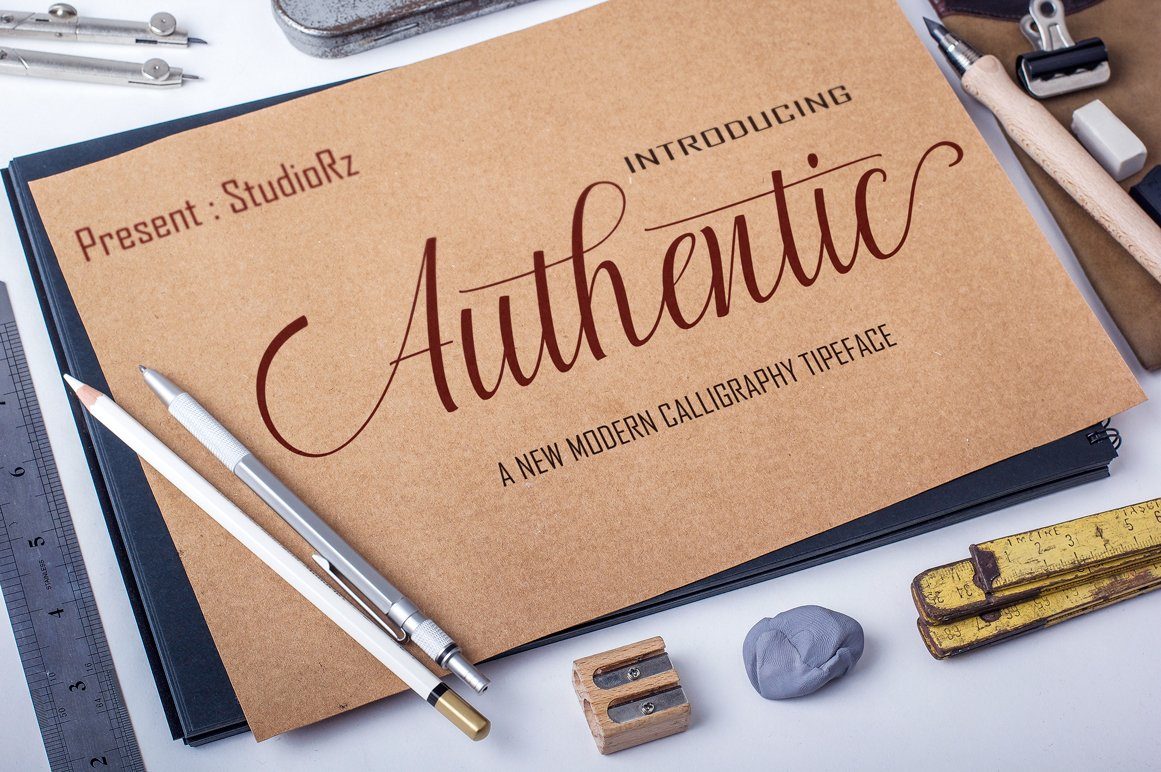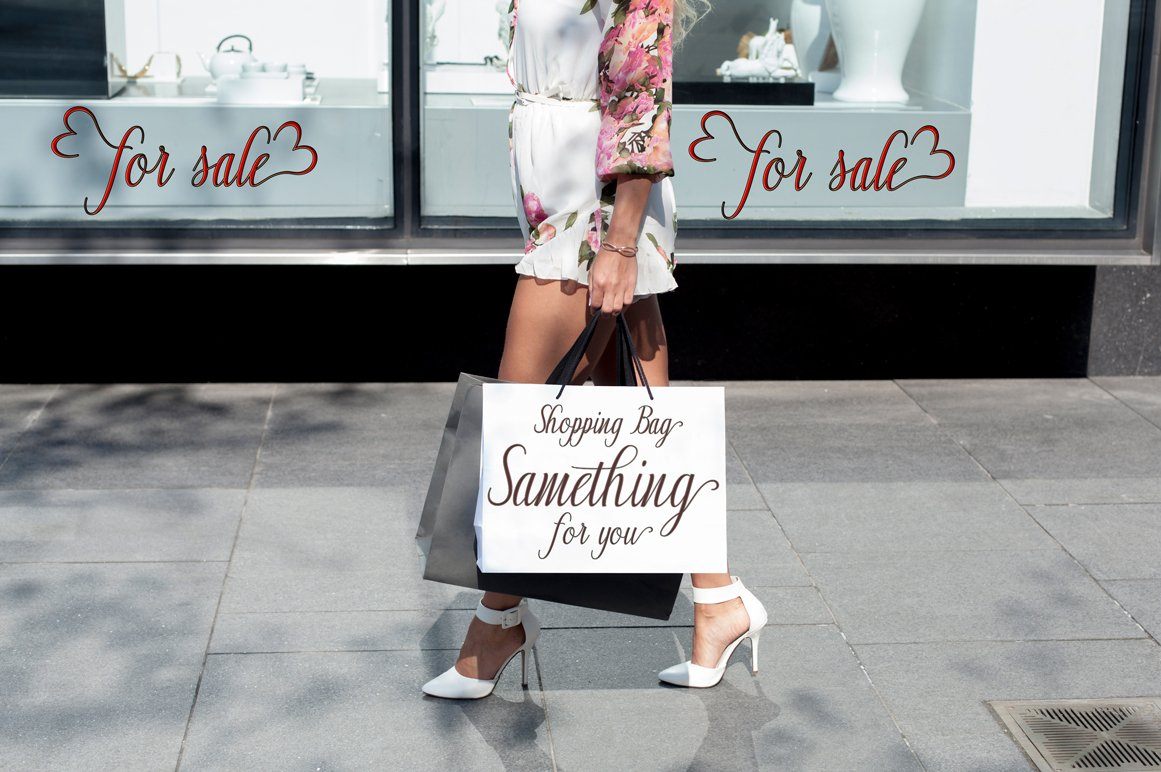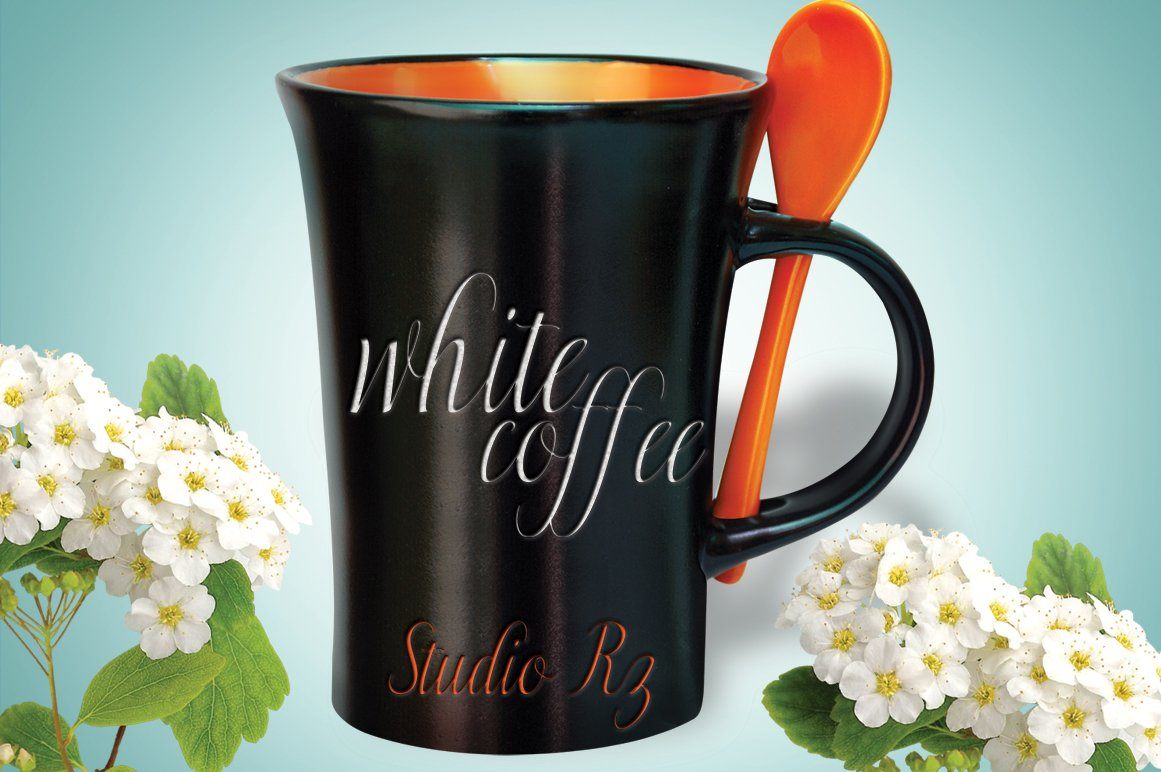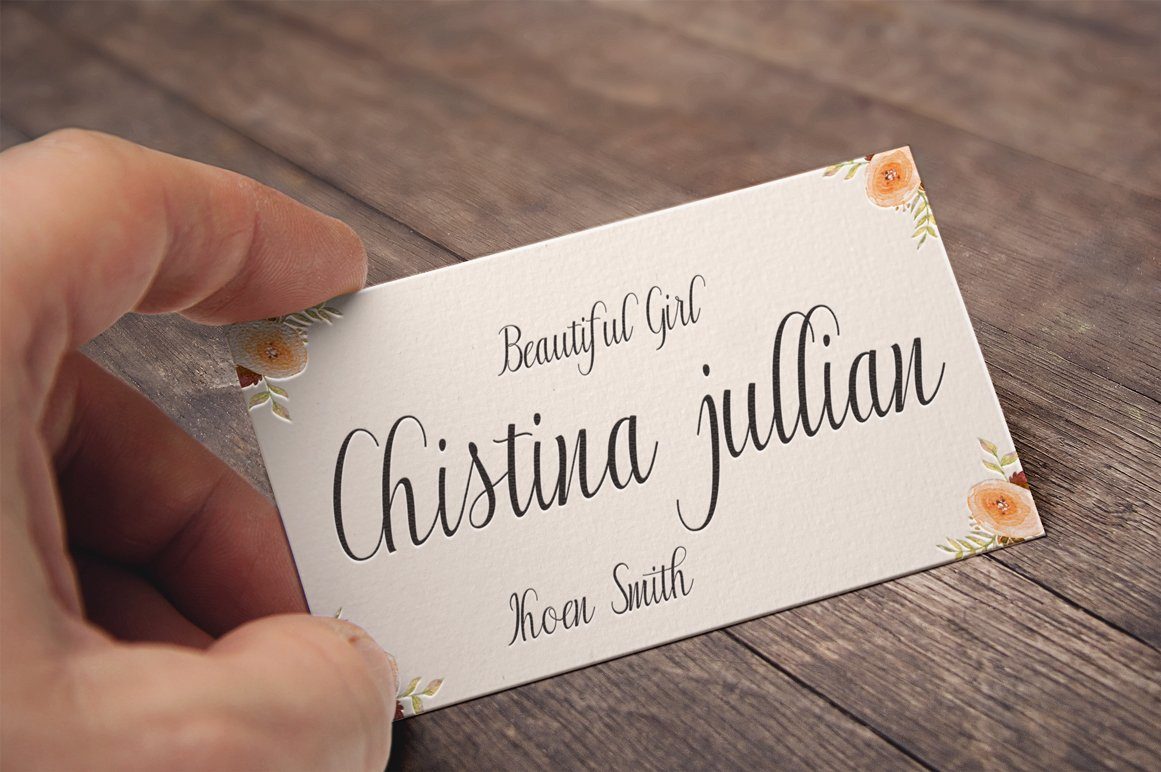
About Authantic
INTRODUCING Authentic Modern Calligraphy. This font was designed by handwriting, and it has a modern and unique forms of calligraphy, the writing style is very natural. Authentic has a very unique style of calligraphy, it is very suitable for use in the work of modern design. The Features of this fonts is: * Standart ligatures * Stylistic Alternates * PUA Unicode (Private Use Areas) * Swash File font Include: * Authentic OTF * Authentic TTF Can be used for various purposes.such as headings, logos, wedding invitation, t-shirt, letterhead, lable, news, posters, badges etc. To enable the OpenType Stylistic alternates, you need a program that supports OpenType features such as Adobe Illustrator CS, Adobe Indesign & CorelDraw X6-X7.a font that made the hand by having the character up and down like a dancer. has a very unique style of calligraphy, it is very suitable for use in the work of modern design. INTRODUCING Authentic Modern Calligraphy. This font was designed by handwriting, and it has a modern and unique forms of calligraphy, the writing style is very natural. has a very unique style of calligraphy, it is very suitable for use in the work of modern design. The Features of this fonts is: * Standart ligatures * Stylistic Alternates * PUA Unicode (Private Use Areas) * Swash File font Include: * Authentic OTF * Authentic TTF * Standart ligatures * Stylistic Alternates * PUA Unicode (Private Use Areas) * Swash Can be used for various purposes.such as headings, logos, wedding invitation, t-shirt, letterhead, lable, news, posters, badges etc. To enable the OpenType Stylistic alternates, you need a program that supports OpenType features such as Adobe Illustrator CS, Adobe Indesign & CorelDraw X6-X7.a font that made the hand by having the character up and down like a dancer. has a very unique style of calligraphy, it is very suitable for use in the work of modern design.